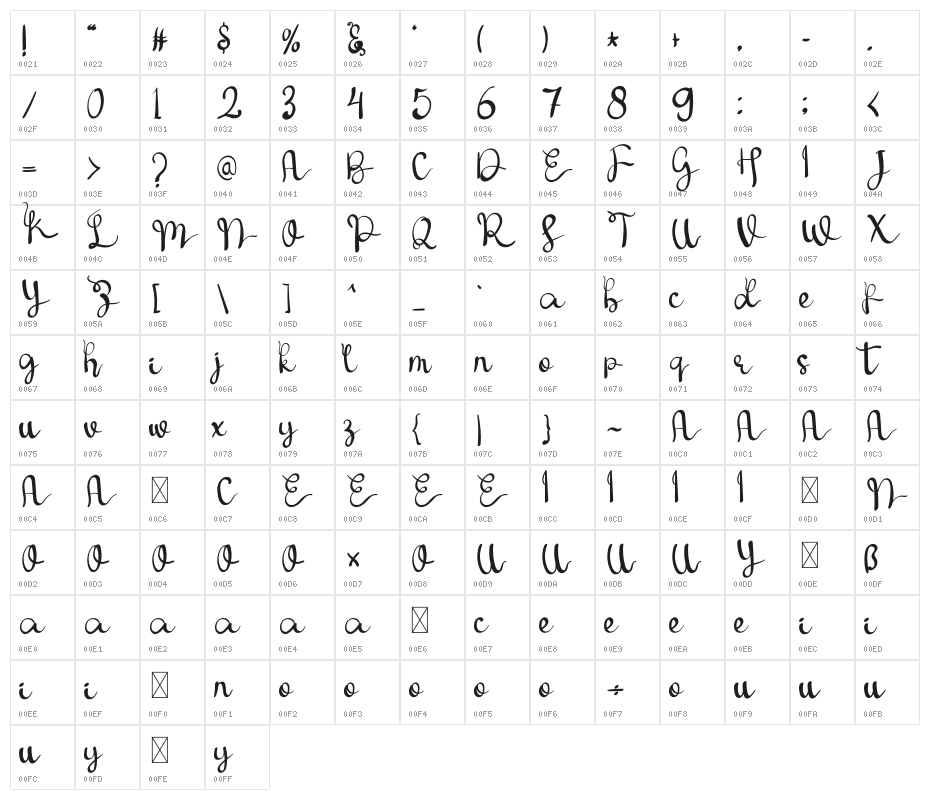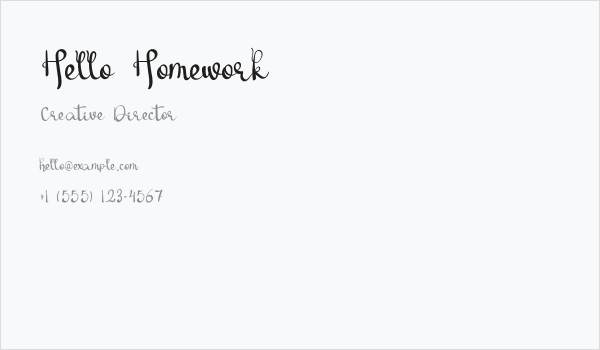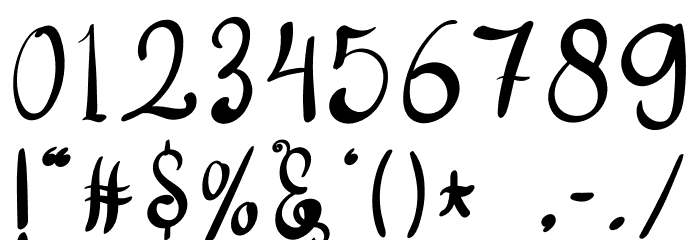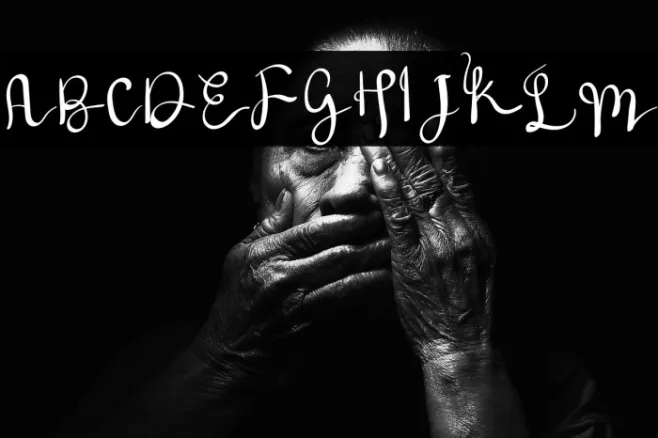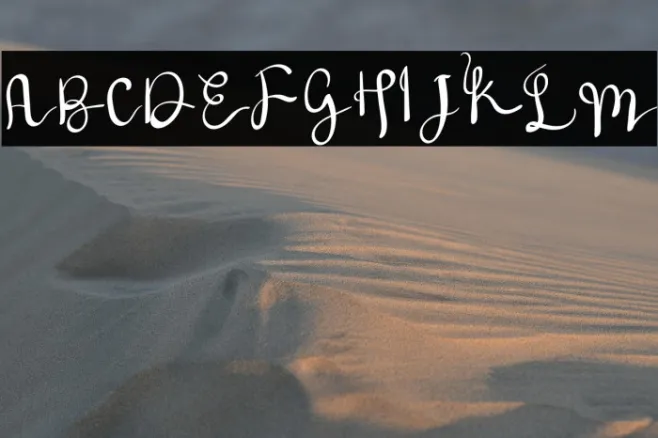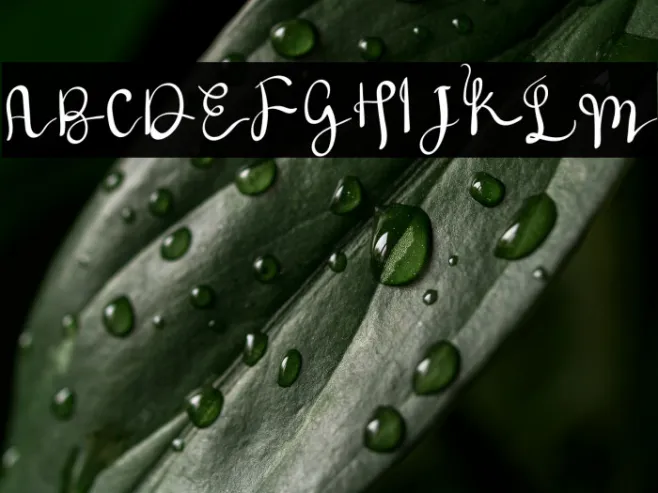
Hello Homework Font
Hello Homework Description
This font features a playful and whimsical script style, characterized by its flowing, cursive letterforms. The uppercase letters are tall and elegant, with unique loops and swirls that add a touch of sophistication. The lowercase letters maintain a consistent style, with smooth curves and a slightly exaggerated flair, making them highly decorative. The numerals are bold and clear, maintaining the same playful aesthetic as the letters. Special characters are creatively designed, adding to the font's overall charm. This font is perfect for projects that require a touch of elegance and creativity.
| Proposed Projects | Ideal for wedding invitations, greeting cards, branding, and creative design projects. |